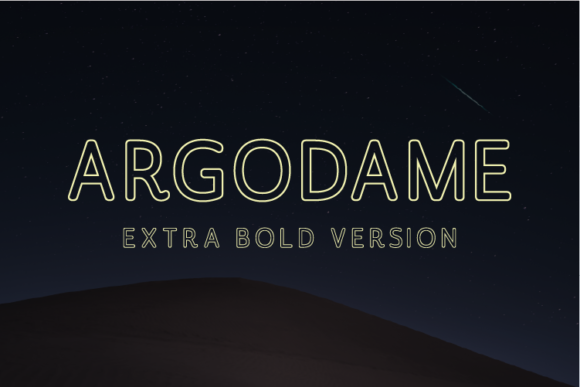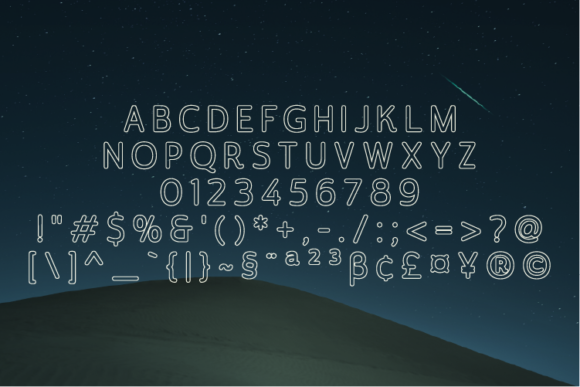
Argodame Extra Bold Font
About Argodame Extra Bold Font
Argodame is a rounded sans serif featuring soft terminals that give it a friendly and expressive look. Its modern and contemporary style, as well as its classic proportions, make it an excellent choice for headlines, logotypes, branding, books, magazines, motion graphics, and much more!